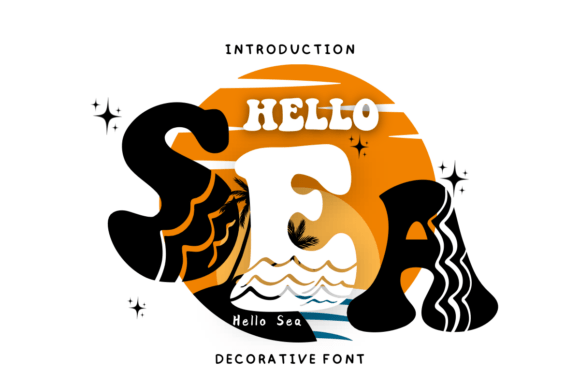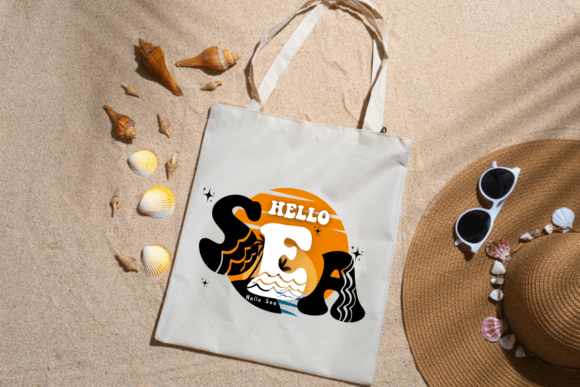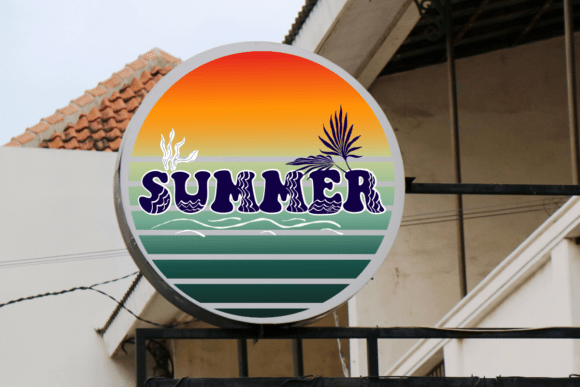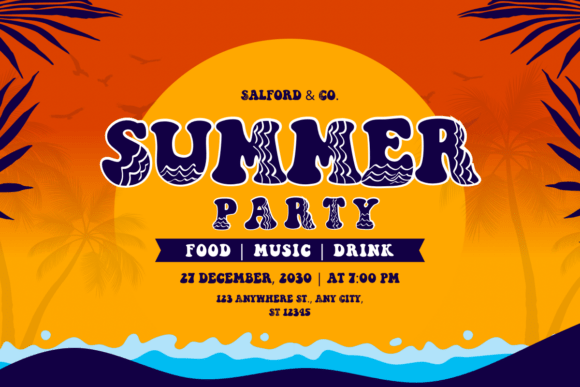
Hello Sea Font: A Playful Decorative Font for Summer Designs!
About the Hello Sea Font
Discover the charm of Hello Sea Font. This font is a perfect blend of modern aesthetics and classic appeal. Hello sea is a decorative font. You can use it for taking notes, writing a diary, or making greeting cards. However, you can still use it for other designs, such as banners, content, mugs, cards, shirts, stationery, social media posts, and more!
Hello Sea’s decorative nature makes it ideal for headlines, short text blocks on posters or packaging, and branding elements requiring a touch of whimsical charm. It excels in projects emphasizing playfulness and approachability, such as children’s books or branding for cafes or boutiques. However, its low x-height and decorative flourishes make it unsuitable for body copy or UI elements where readability is paramount.
For optimal visual balance, pair Hello Sea with a clean sans-serif like Open Sans for body text or a classic serif like Garamond for more formal applications. A simple geometric sans-serif could also provide a nice contrast, creating a modern and sophisticated feel.
The font’s overall personality is playful and friendly, yet retains a degree of elegance in its detail. Avoid using it in contexts requiring seriousness or professionalism; instead, focus on projects that benefit from a lighthearted and approachable aesthetic.
Hello Sea Font Usage Examples